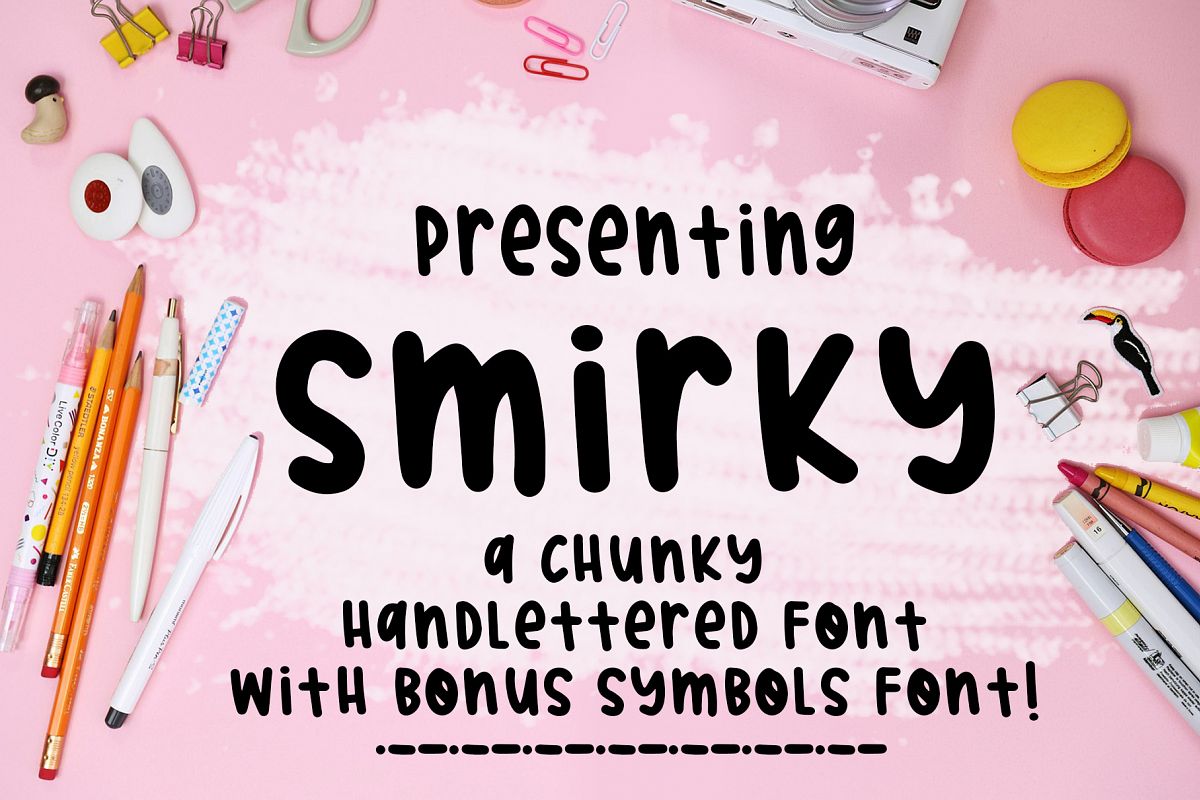
Smirky
Smirky-Symbols
Smirky-Print
Smirky is a chunky hand-lettered font that includes a fun symbols font! Perfect to use for every occasions, invitations, t-shirts, posters, business cards and more!